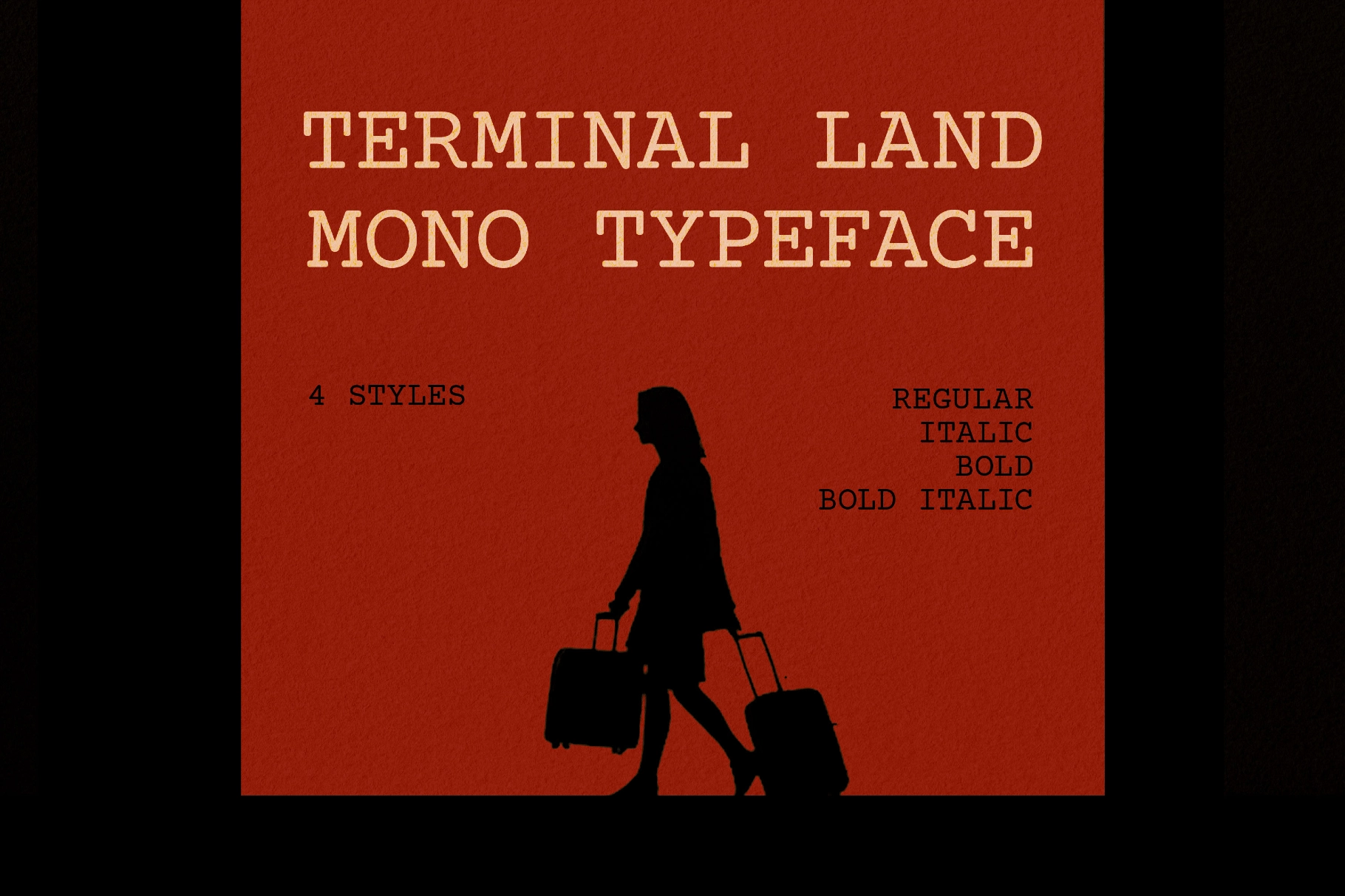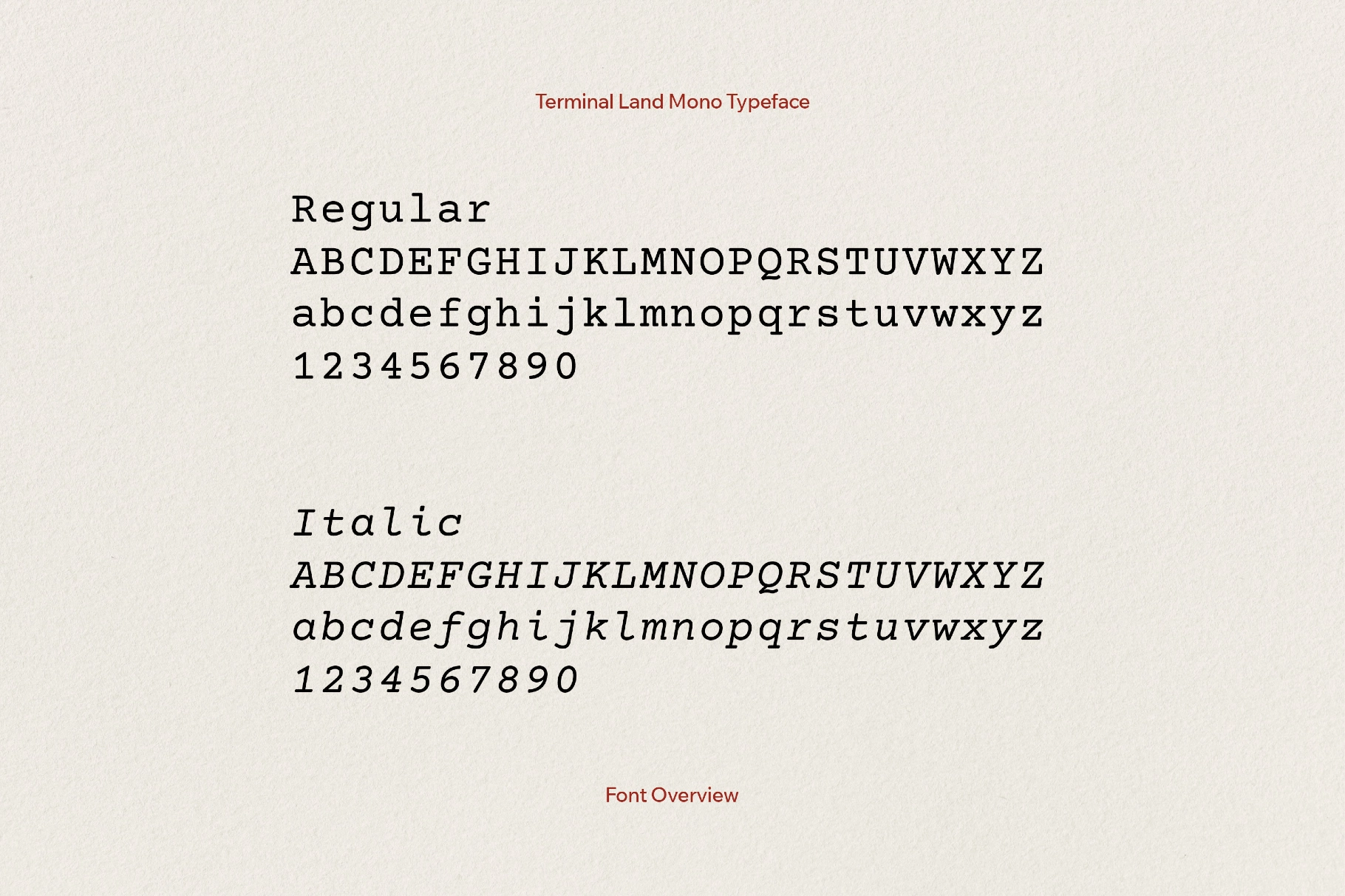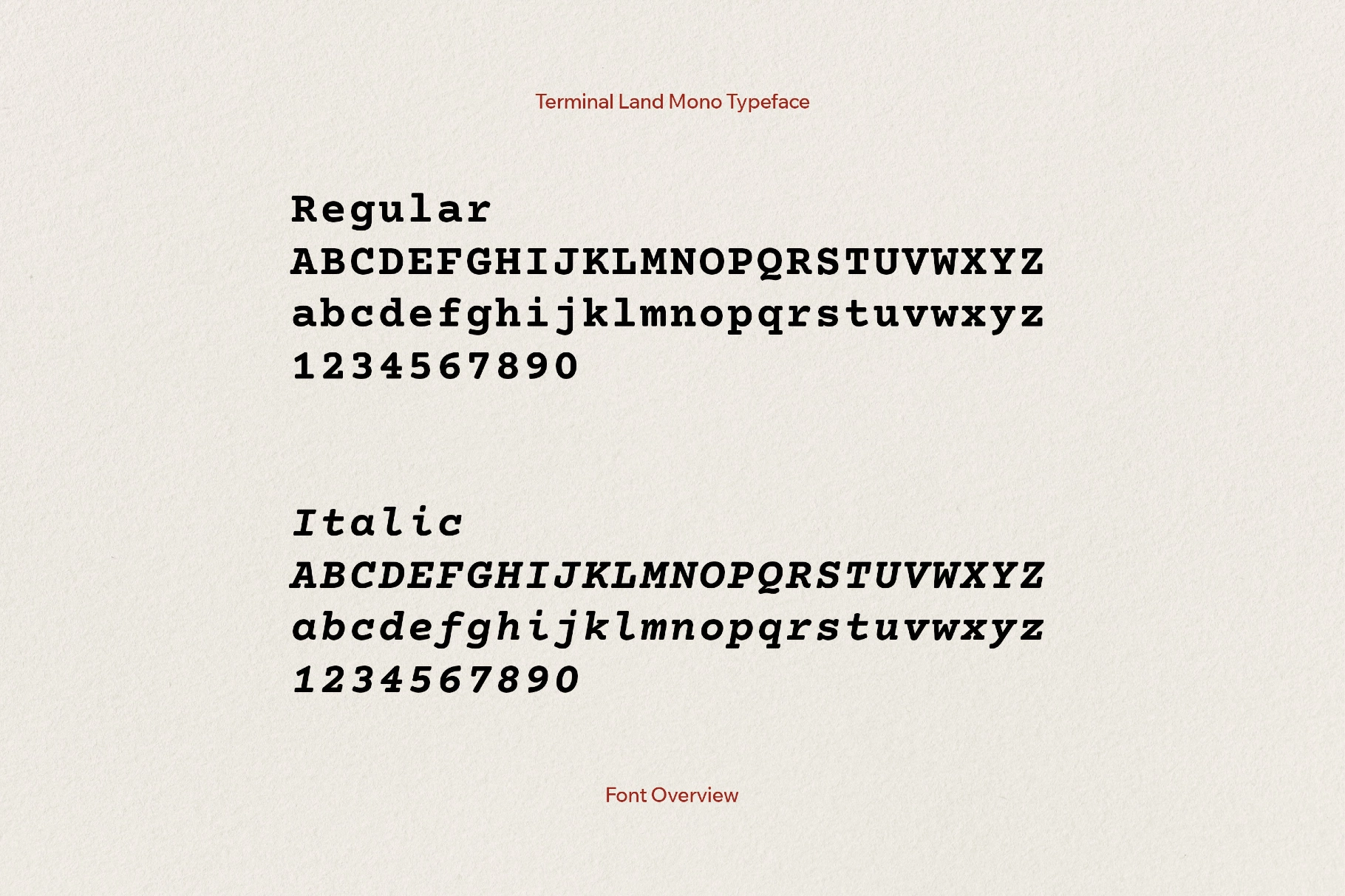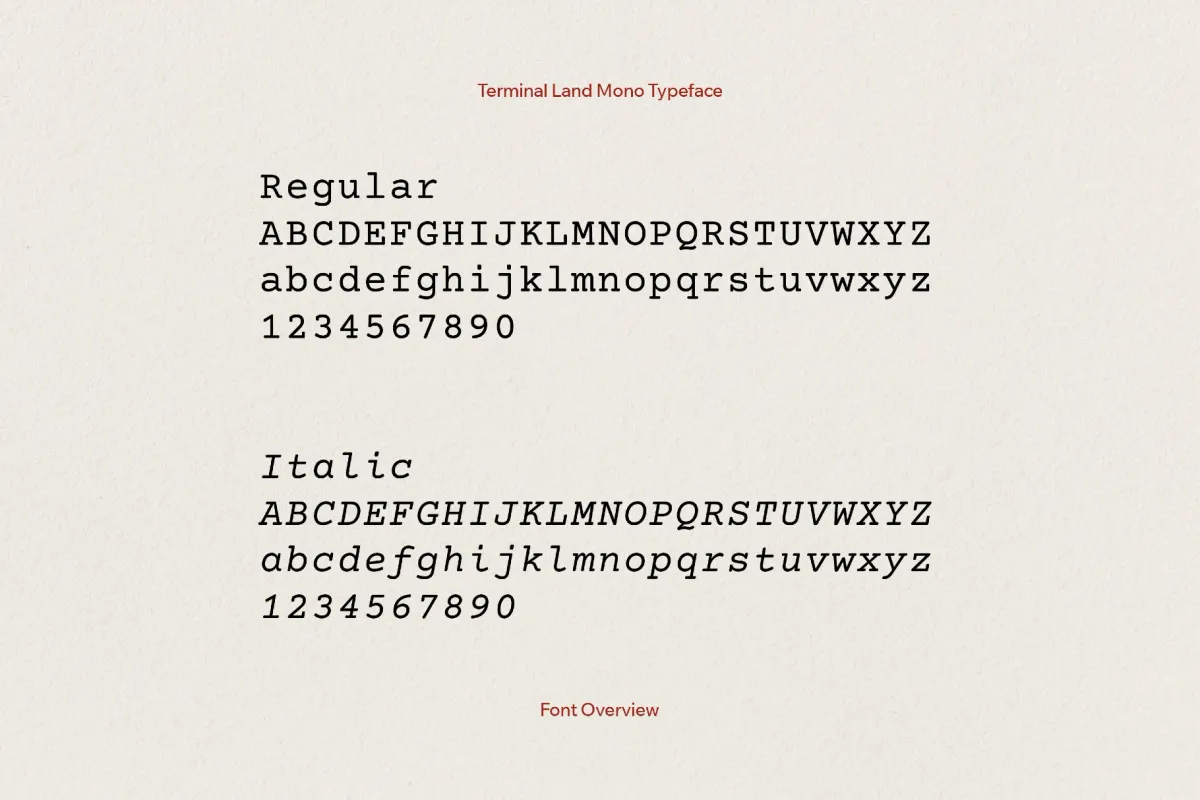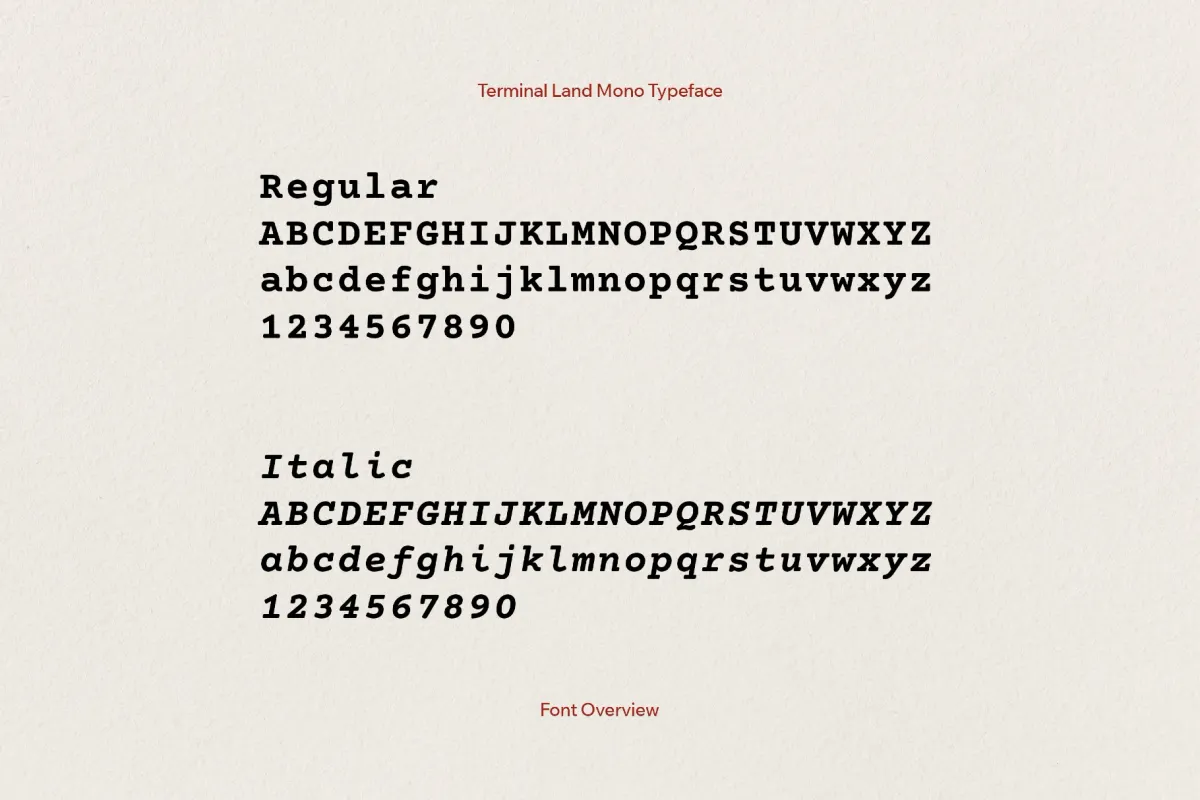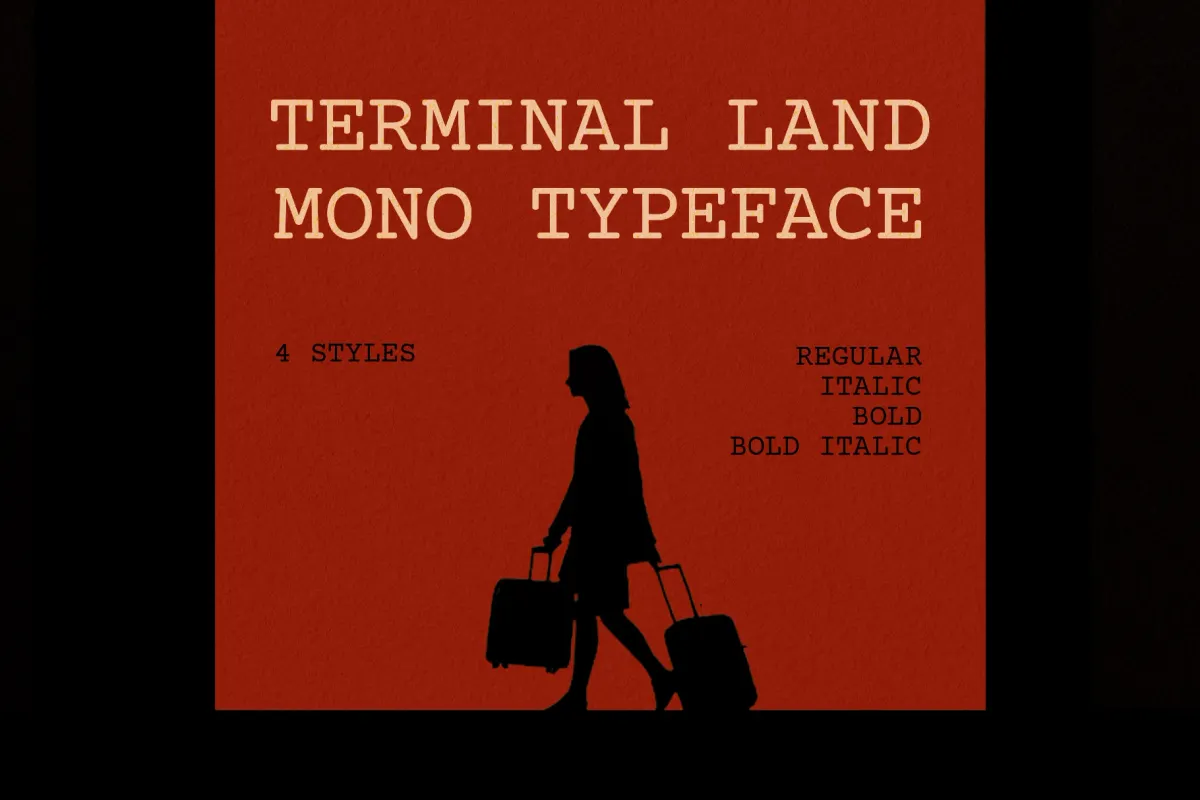
Terminal Land Mono Typeface
Terminal Land Mono revives the crisp, low-resolution design of early command-line interfaces. Its monospaced rhythm, rounded construction, squared counters, and slightly mechanical curves reveal the look of vintage terminals, adventure-game prompts, and office machines.
Included: uppercase and lowercase letters, numbers, punctuation and symbols, extra symbols plus multilingual support, international characters, and extended support for mathematical symbols and metrics. Twin personalities are included — a Sans and a Slab — each in Regular and Bold with matching italics.